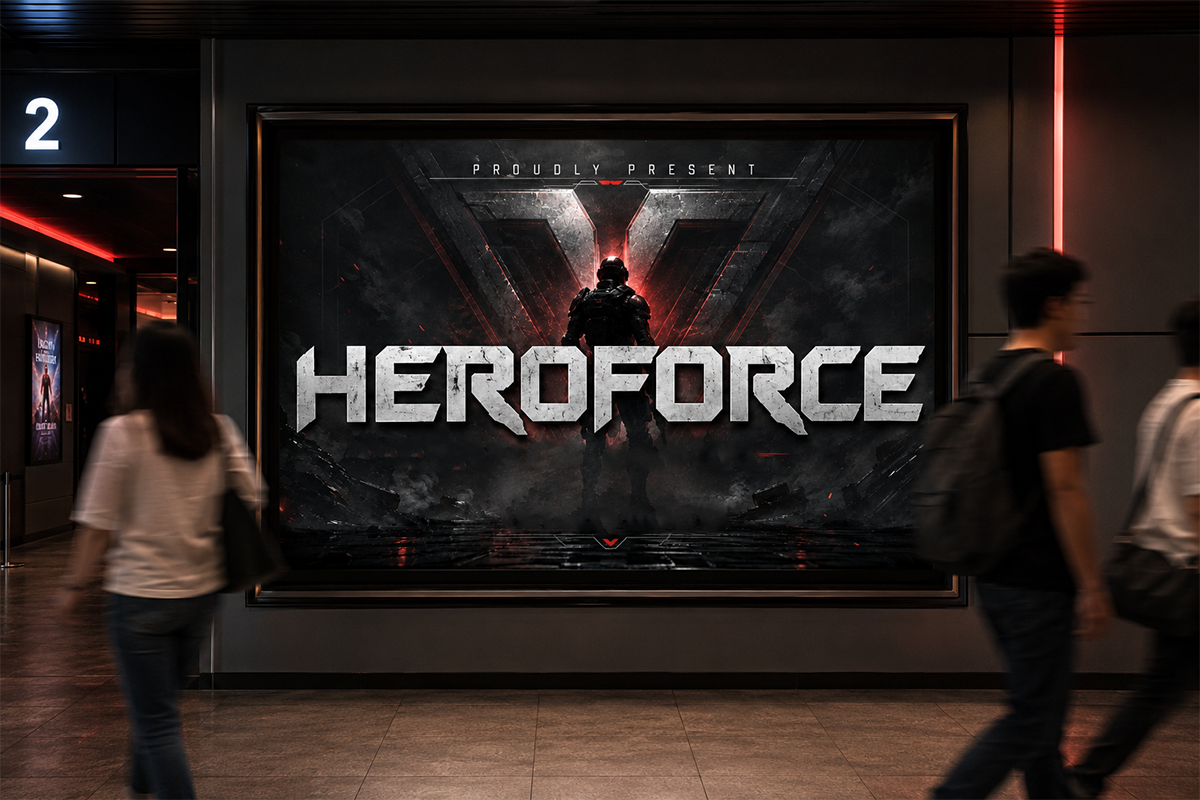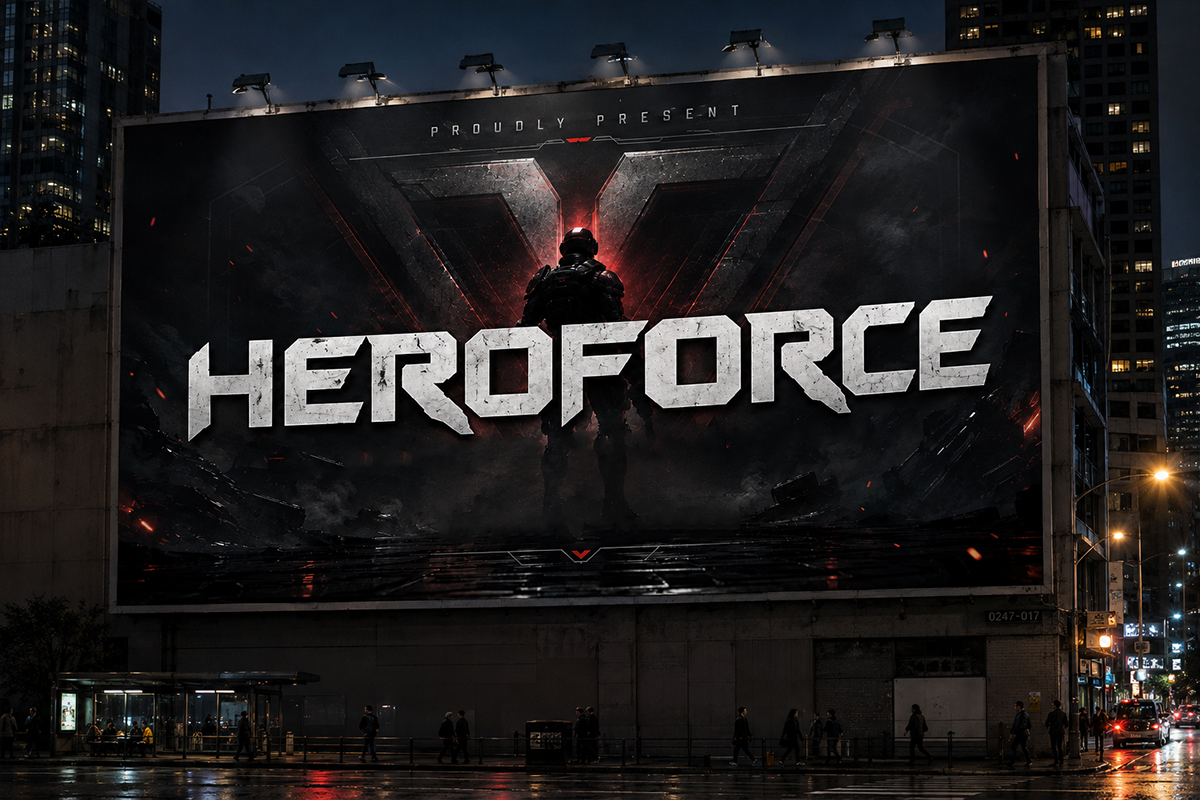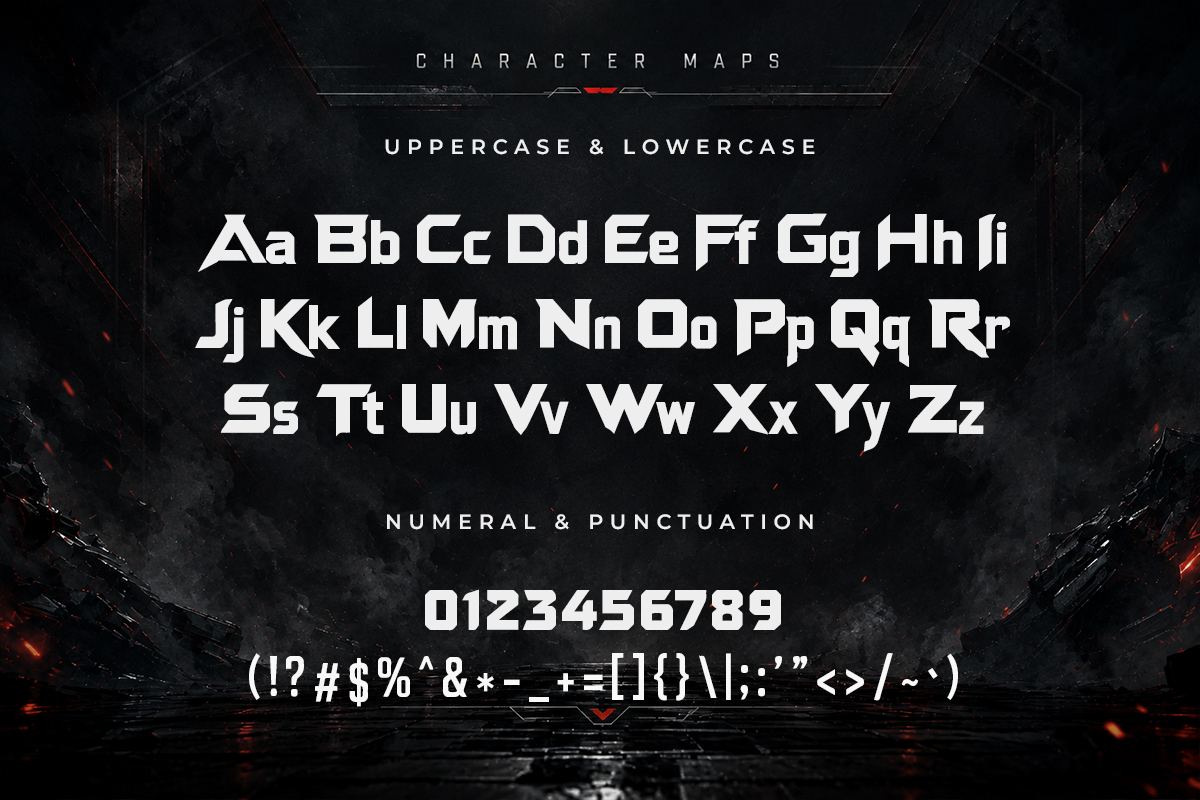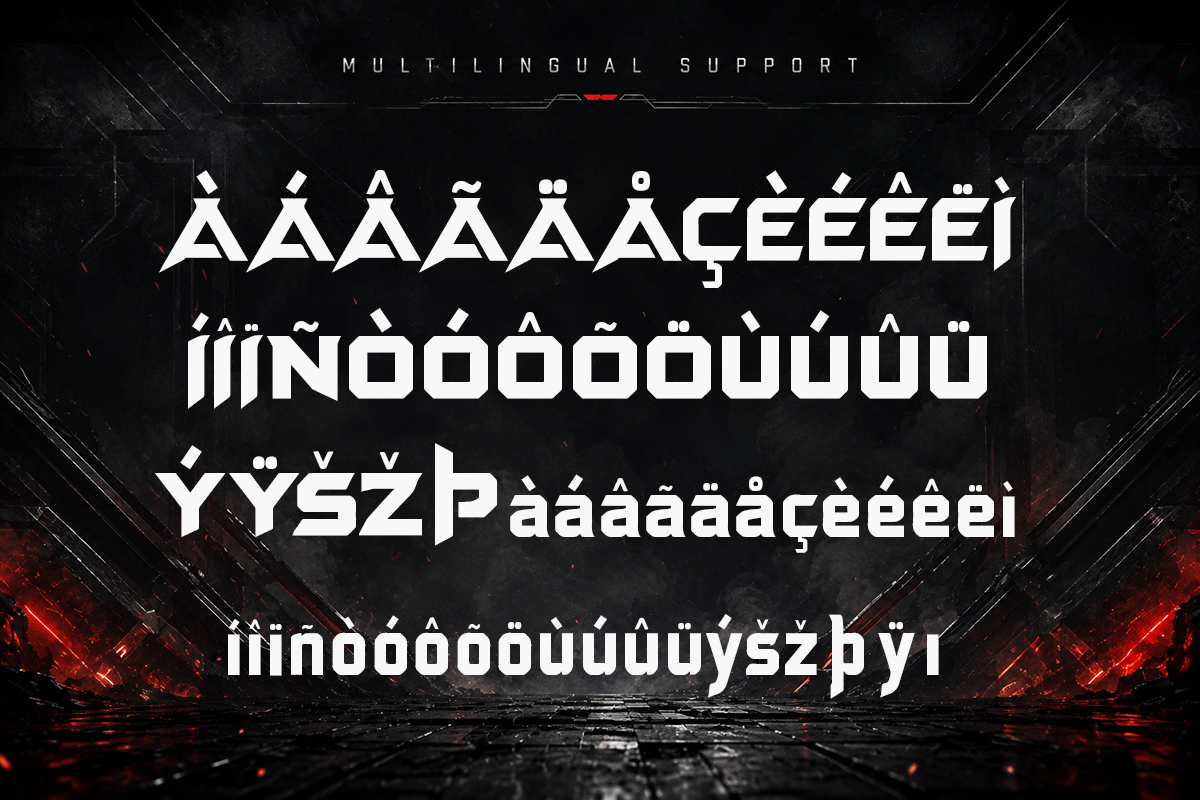
Heroforce is a bold cinematic display font built for powerful titles, action-driven branding, and high-impact visual storytelling. Its sharp geometric construction, strong angular cuts, and futuristic letterforms create a commanding look inspired by modern action, sci-fi, military, gaming, and blockbuster movie aesthetics.
Designed to stand out at large sizes, HeroForce works perfectly for movie posters, film titles, trailers, streaming graphics, game covers, esports branding, YouTube thumbnails, merchandise, advertising, and promotional campaigns.